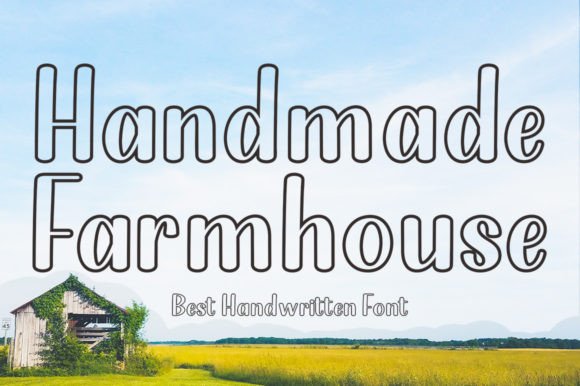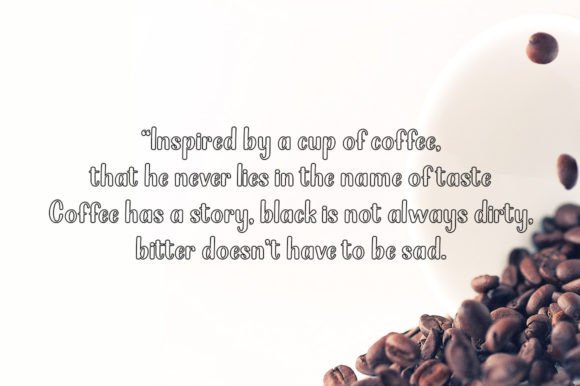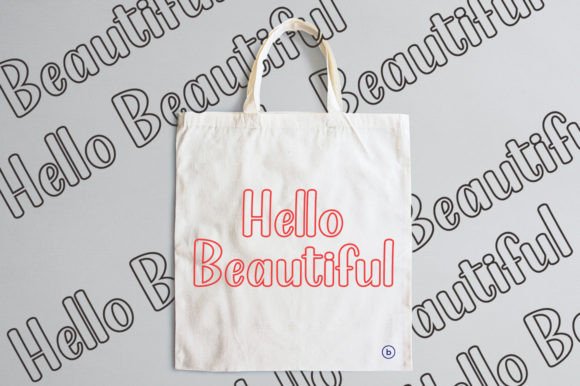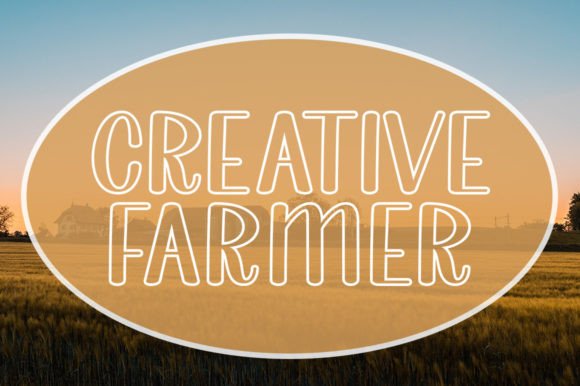
Handmade Farmhouse Outline Font
About the Handmade Farmhouse Outline Font
The Handmade Farmhouse Outline Font offers a perfect balance of form and function for your design needs. Handmade Farmhouse Outline is a warm and cozy handwritten font, carefully handcrafted to become a true favorite. It can be used for various purposes such as logos, invitations, headings, t-shirts, letterhead, signage, labels, news, posters, badges and so much more
This font excels in applications requiring a rustic, handcrafted aesthetic. Ideal uses include logos for artisanal businesses, wedding invitations, signage for farm-to-table restaurants, or packaging for handmade goods. Headlines and short text blocks benefit most from its charm; however, its outlined nature may reduce readability in longer passages. Avoid using it for body text or UI elements where legibility is paramount.
Pairing Handmade Farmhouse Outline with a clean sans-serif like Open Sans for body copy provides excellent contrast and visual balance. For a more playful feel, consider a script font such as Allura, but use it sparingly. A geometric sans-serif like Montserrat could also work well, adding a touch of modern sophistication to offset the font’s rustic charm.
The overall personality is friendly, approachable, and evokes a sense of warmth and nostalgia. It’s perfect for brands that wish to communicate authenticity and handcrafted quality.
Handmade Farmhouse Outline Font Usage Examples
Handmade Farmhouse Outline Font Example